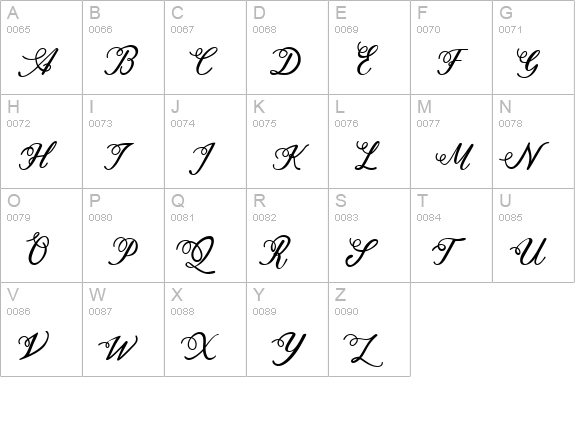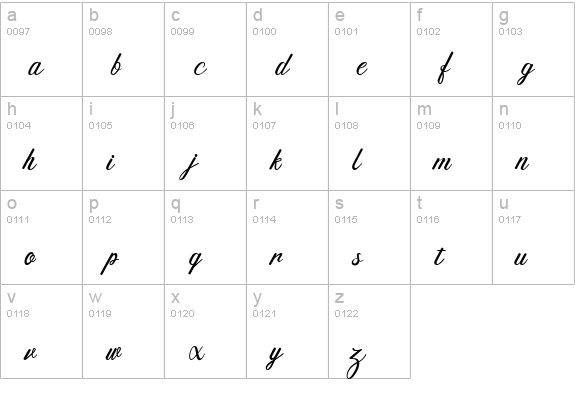
Dellancy is a demo font in the Script > Calligraphy category, designed by HydricDesign. It has been downloaded 644 times and is available for Windows, Mac and Linux.
Dellancy font is a stylish and elegant typeface that exudes sophistication and charm. Its graceful curves and sleek lines make it perfect for a wide range of design projects, from invitations to branding to signage. With its timeless appeal, Dellancy font effortlessly adds a touch of class to any composition.